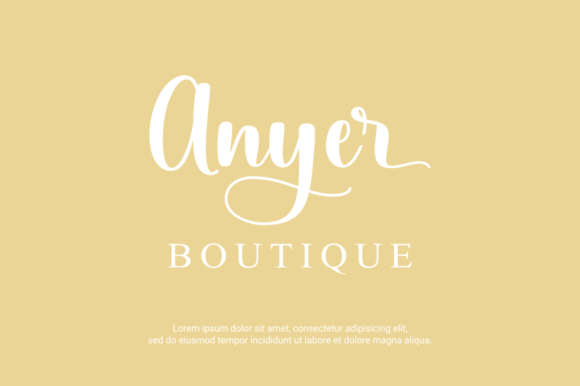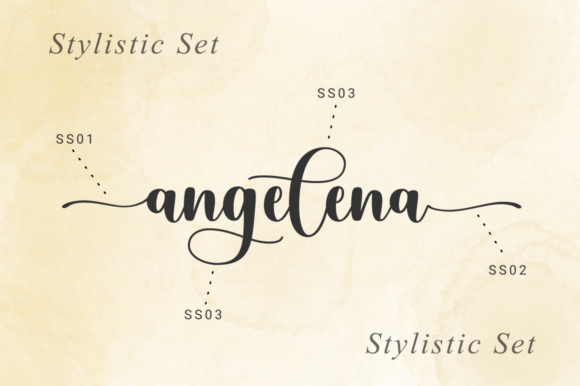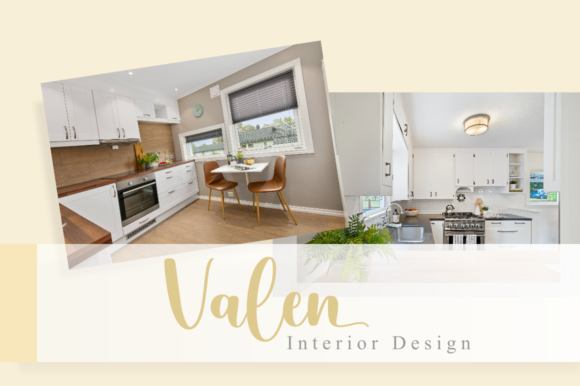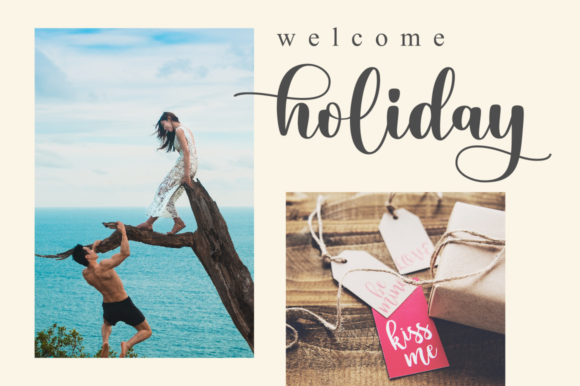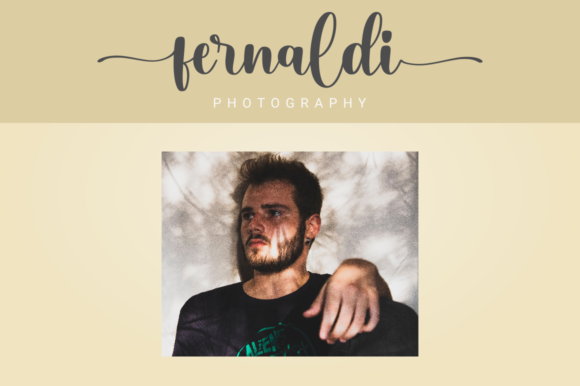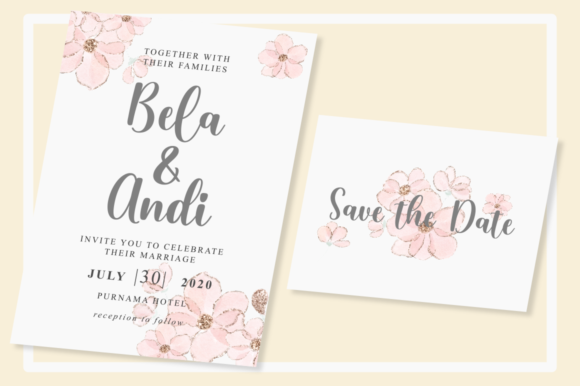
This sweet and soft handwritten font has been a game-changer for me, and I’m excited to share its charm with you. In this article, we’ll explore the ins and outs of Geraline Font, from its features and benefits to practical tips on how to use it in your designs.
A Personal Review: What I Love About Geraline Font
So, what makes Geraline Font so special? Here are a few things that I love about it:
- ✨ Authentic feel: Geraline Font has a genuine, handwritten feel that’s perfect for creating warm and inviting designs.
- ✅ PUA encoded: This font is PUA encoded, which means you can access all of the glyphs and swashes with ease!
- 💕 Versatile: Geraline Font is perfect for a wide range of design projects, from wedding invitations and stationery to social media posts and greeting cards.
While Geraline Font is an amazing font, there are a few small quirks to be aware of:
- 🤔 Limited character set: As with any font, there may be limitations to the character set, so be sure to check the font specs before using it for a project.
- ⚠️ Glyph access: While PUA encoding makes it easy to access glyphs, you may need to use a specific software or plugin to access them.
Geraline Font was inspired by the classic handwriting of the past. Its designer wanted to create a font that was both elegant and approachable, perfect for a wide range of design projects. The result is a font that’s both timeless and trendy.
| What is Geraline Font? | Geraline Font is a sweet and soft handwritten font that’s perfect for creating gorgeous wedding invitations, beautiful stationery art, eye-catching social media posts, and cute greeting cards. |
| Is Geraline Font PUA encoded? | Yes, Geraline Font is PUA encoded, which means you can access all of the glyphs and swashes with ease! |